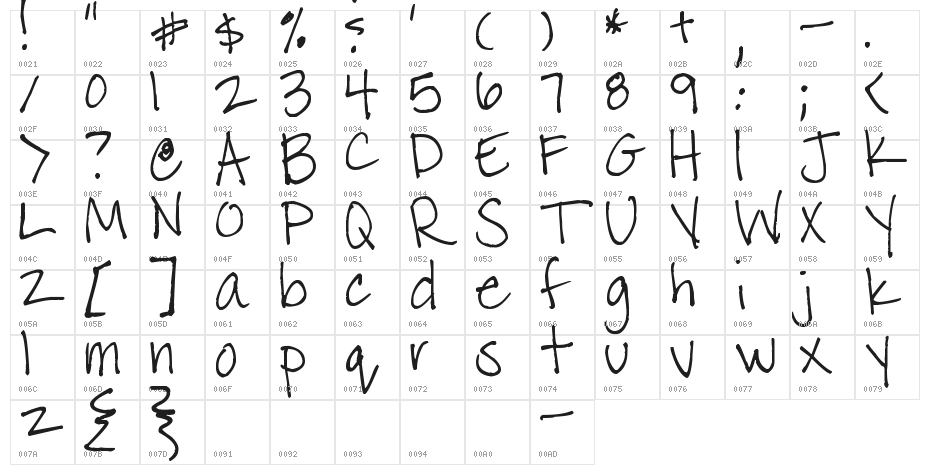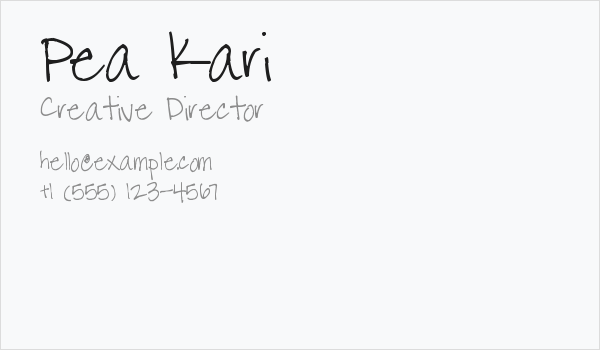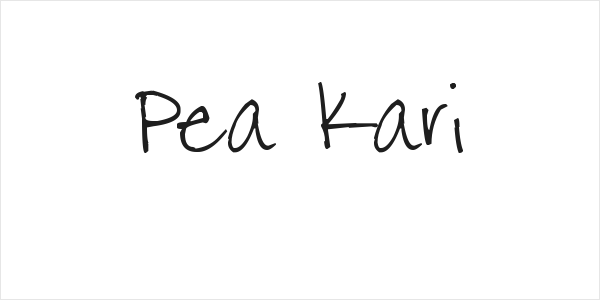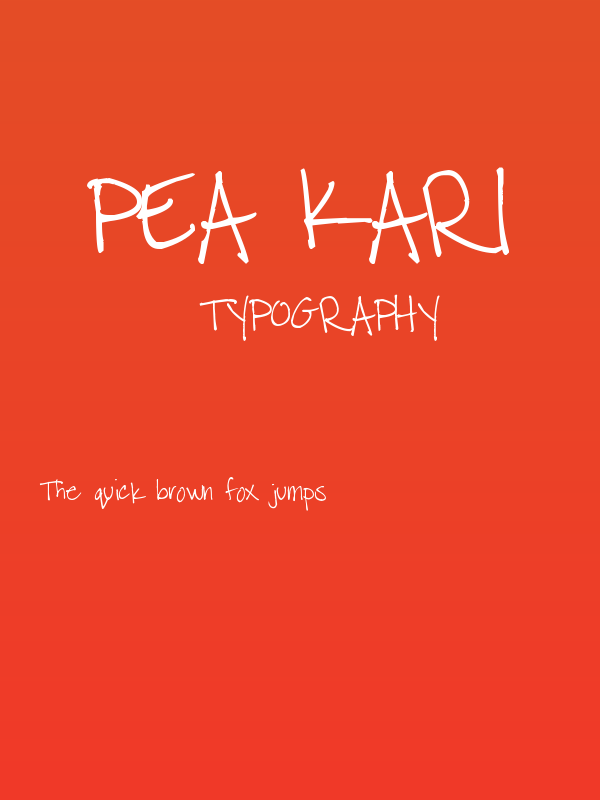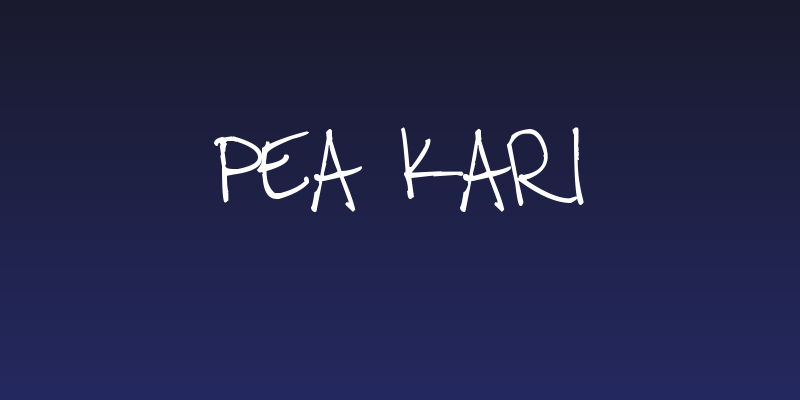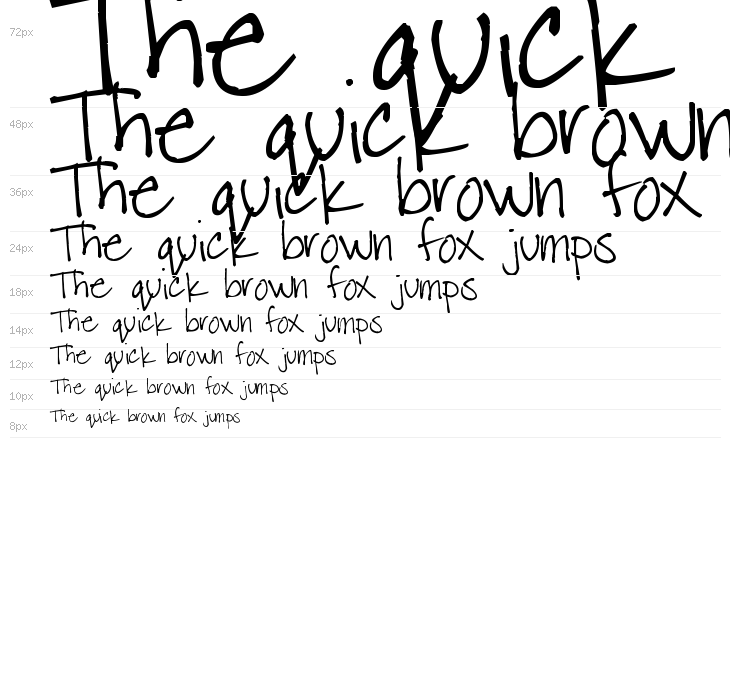
Pea Kari Font
| Stile generale | Casual |
| Caso d'uso | Logos, Headlines, Informal text |
| Progetti proposti | Ideal for greeting cards, children's books, personal blogs, and informal branding. |